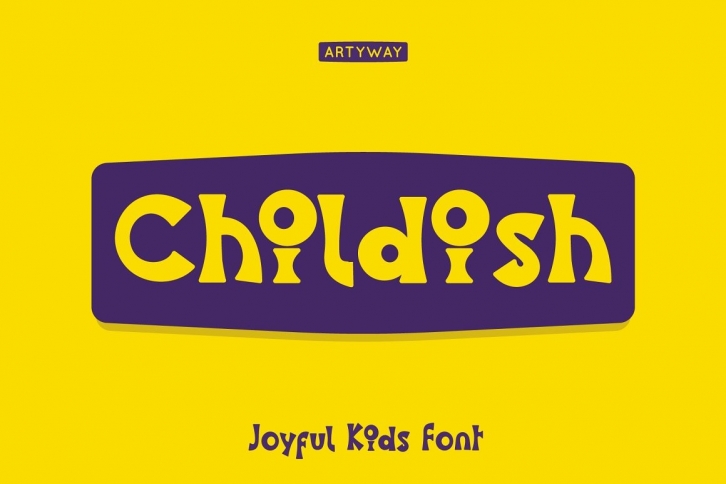
Childish is a fun, retro styled and funky looking display font.
It is ideal for children products such as games, book titles, toys, playrooms or kids zone.